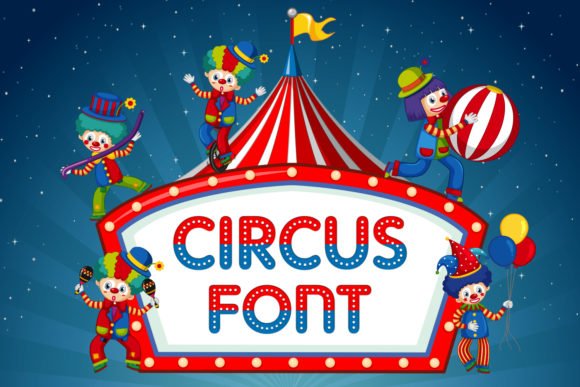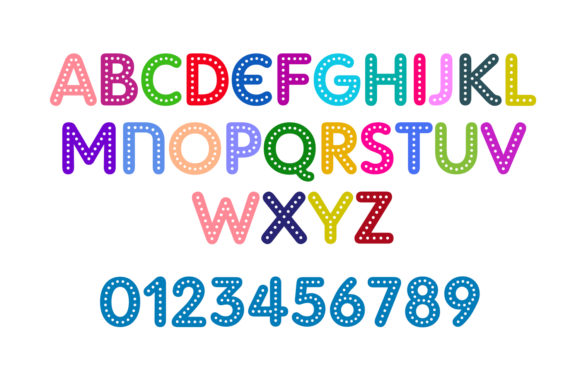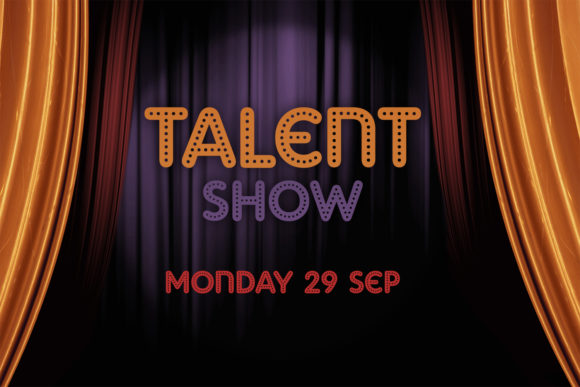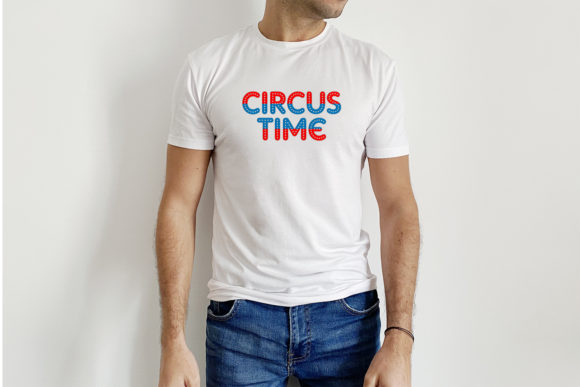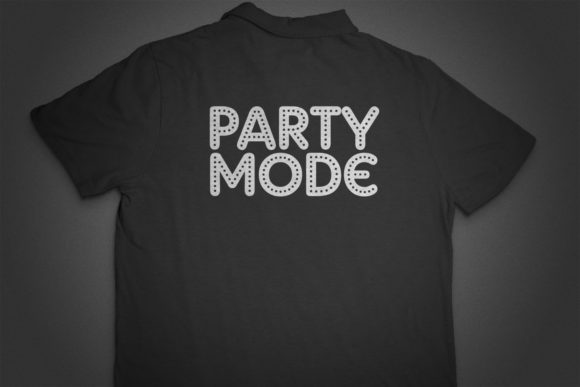
Circus Font: Bringing Bold Creativity to Your Designs
Remember that moment when you were brainstorming a new project and suddenly, a spark of inspiration hit you? You envisioned a vibrant, eye-catching design that would leave a lasting impression on your audience. That’s exactly what happens when you add the right font to your creative ideas. Introducing Circus Font, a bold and chunky lettered display font that’s sure to make your designs stand out from the crowd.
Circus Font is more than just a font – it’s a statement piece that adds a touch of playfulness and whimsy to your work. With its unique, hand-drawn feel, it’s the perfect choice for designers looking to add a bit of excitement to their projects. Whether you’re working on a branding campaign, a marketing brochure, or a social media graphic, Circus Font is a valuable addition to your design toolkit.
Circus Font Key Features
- Font Family: Circus Font is a display font, available in several weights, including Regular, Bold, and Italic.
- Unique Characteristics: Circus Font features a unique, playful design with a mix of modern and vintage elements, making it perfect for creating eye-catching headlines and titles.
Circus Font Review
Overall, I have mixed feelings about the Circus Font. While it has some great features, it also has some limitations that might make it not ideal for every project.
- ✨ Playful and whimsical feel: The Circus Font has a fun and lively atmosphere that’s perfect for creative projects or children’s materials.
- ✨ Versatile: The font is available in various weights and styles, making it suitable for a range of applications, from headings to body text.
- ✨ Beautiful typography: The Circus Font has a beautiful, hand-drawn feel that adds a touch of elegance to any design.
- ⚠️ Limited legibility: The Circus Font’s playful feel can sometimes make it difficult to read, especially in smaller sizes or at a distance.
- ⚠️ Not suitable for formal projects: The font’s whimsical nature makes it less suitable for formal or professional projects, such as business reports or academic papers.
Overall, the Circus Font is a great choice for projects that require a playful and creative touch. However, it’s essential to consider its limitations and choose it wisely.
Tips for Getting the Most Out of Circus Font
For the most dramatic effect, use Circus Font in conjunction with bold, bright colors and playful graphics.
Consider using Circus Font for titles, headings, and other attention-grabbing text elements.
Experiment with different font sizes and styles to add visual interest to your design.
Circus Font is ideal for:
Children’s party invitations and decorations
Theme park and carnival marketing materials
Playful advertising and promotional campaigns